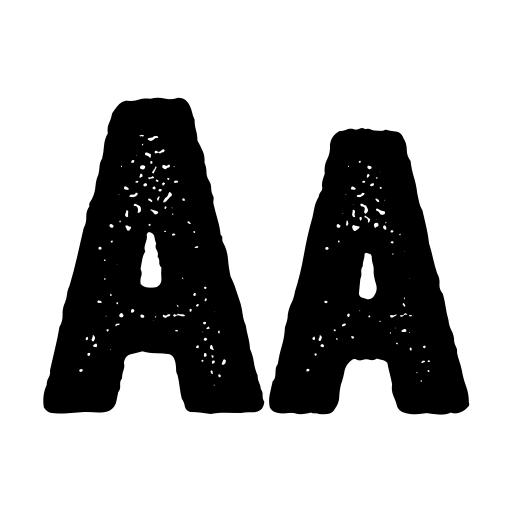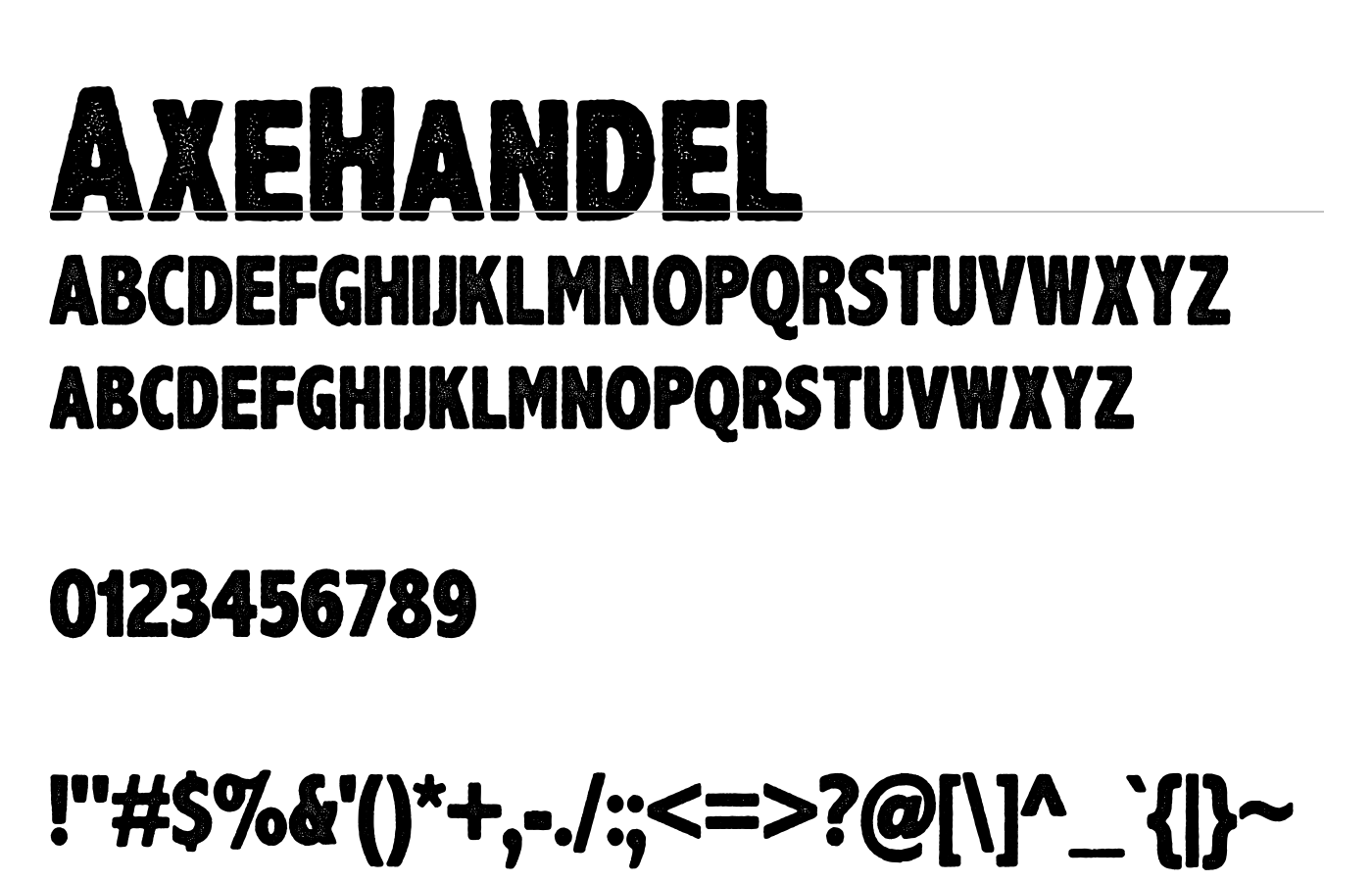
AxeHandel is a bold, condensed sans-serif font with a rough, textured look that gives it a handcrafted, vintage feel. Its uppercase letters and bold weight make it perfect for attention-grabbing headlines or branding that seeks a rustic, edgy, and strong personality. This font works well for packaging, posters, and logos where a rugged, artisanal touch is desired.
AxeHandel Font
About AxeHandel Font
| Designer | S. John Ross |